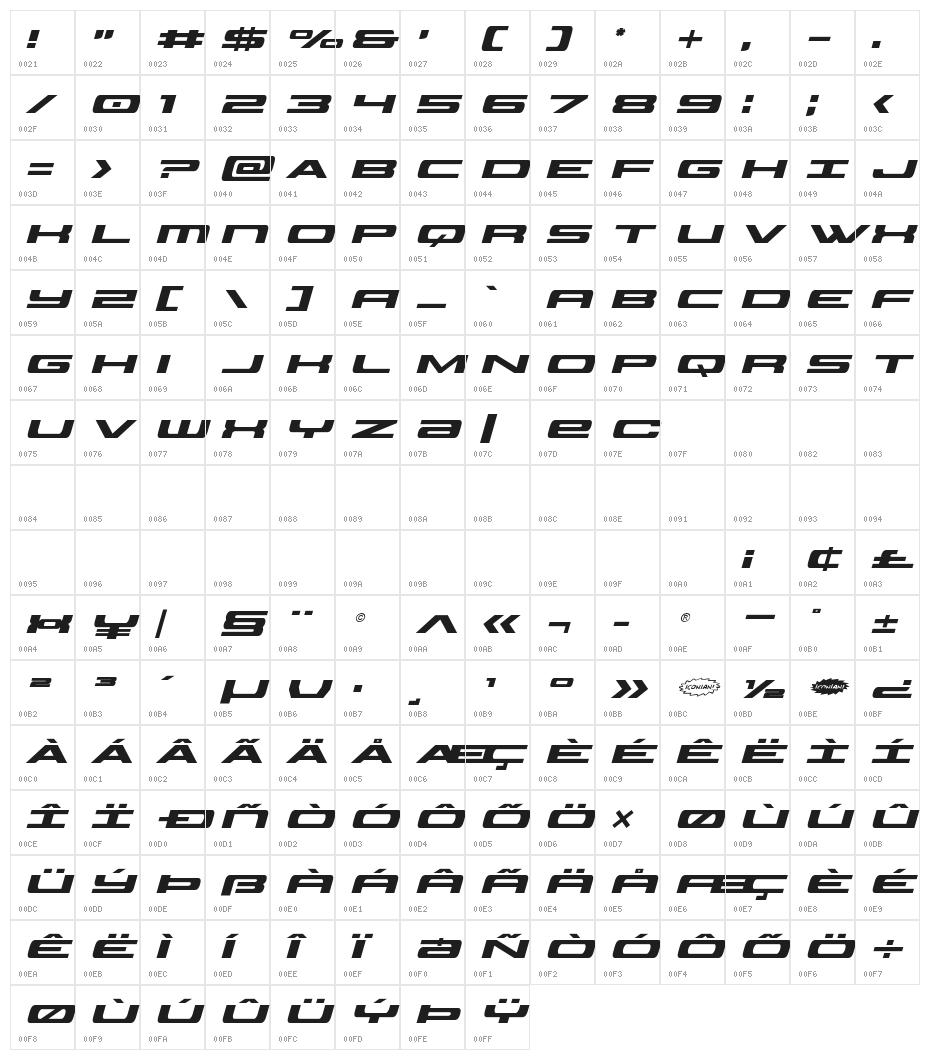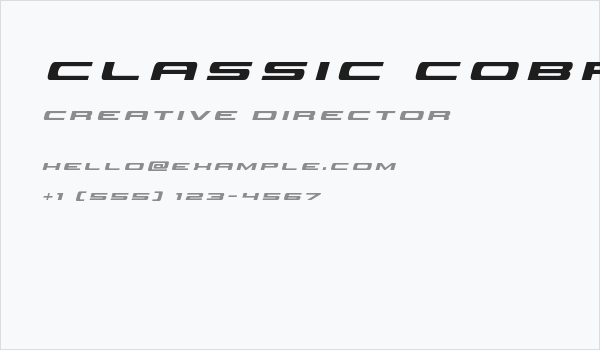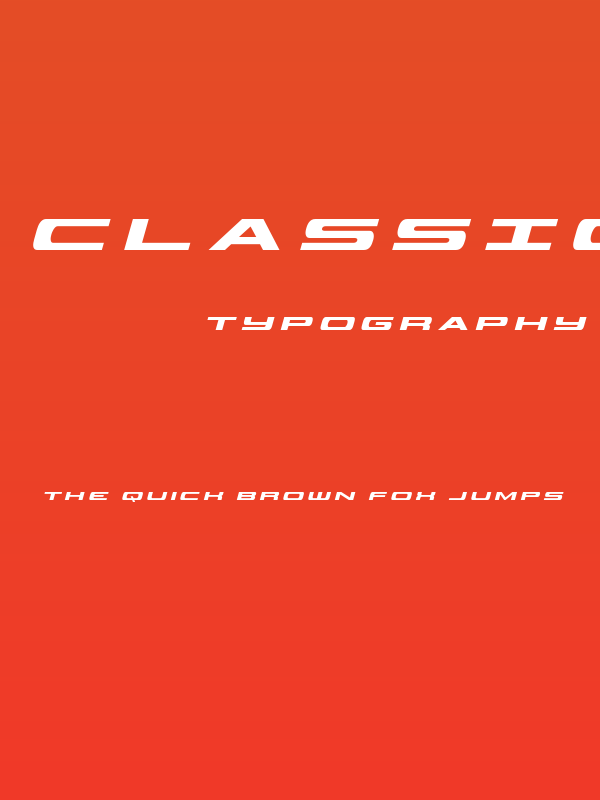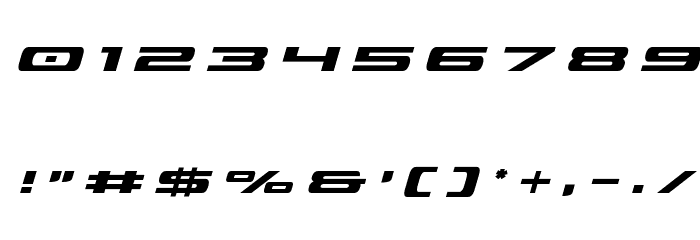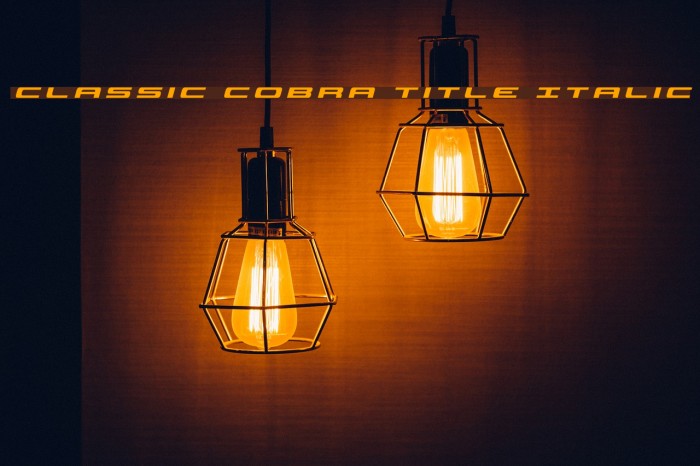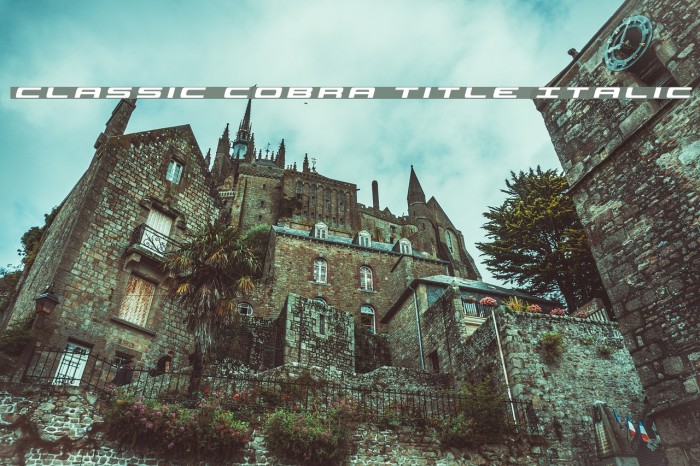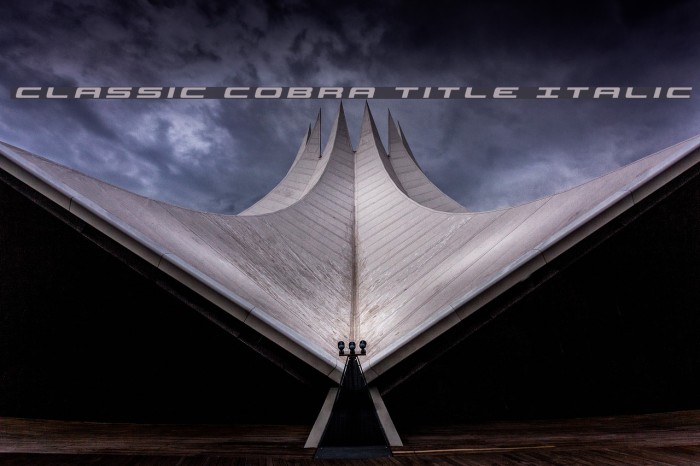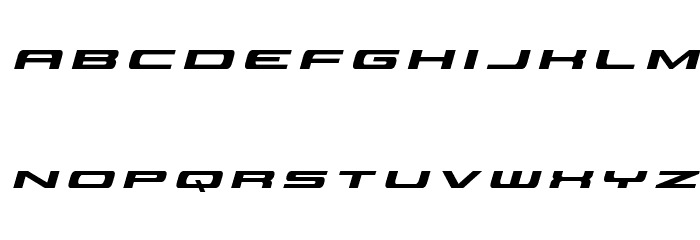
Classic Cobra Title Italic Font
Classic Cobra Title Italic Description
This font features a sleek, italicized design with a modern and dynamic appearance. The characters are slightly slanted, giving a sense of motion and speed. The strokes are consistent in weight, providing a uniform look across all letters and numbers. The design is clean and minimalistic, with a futuristic touch that makes it suitable for contemporary projects. The uppercase and lowercase letters maintain a cohesive style, while the numerals and special characters are crafted to match the overall aesthetic.
| Use Case | Logos, Headlines |
| Proposed Projects | Ideal for automotive branding, sports team logos, tech product packaging, and modern web design. |